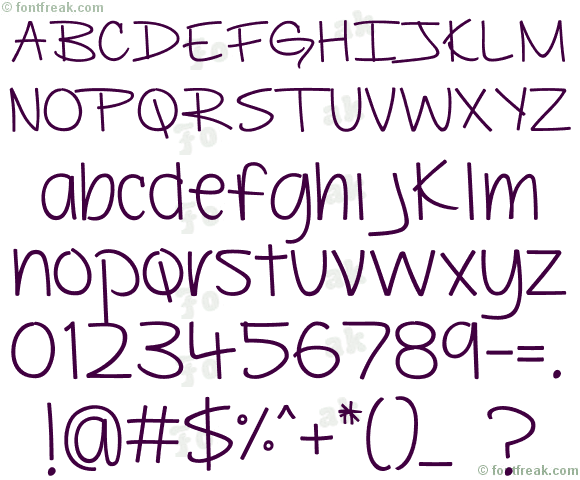
Beautiful Flaws
About Beautiful Flaws
Beautiful Flaws by Kelvin Ma is a unique handwritten font that captures the essence of imperfection, embodying a charming and personal touch. This font is characterized by its playful, irregular strokes that reflect a natural and organic style. The varying stroke weight and subtle contrast provide a sense of dynamism, while the generous spacing between characters enhances readability, making it suitable for various design projects. The design elements of Beautiful Flaws evoke a sense of authenticity, making it a delightful choice for those looking to add a human touch to their work.
This font is particularly well-suited for wedding invitations, where its elegant yet informal style creates a warm and inviting atmosphere. Additionally, it makes a striking choice for movie posters, as its unique characteristics can effectively convey the mood and theme of the film. Restaurant menus can also benefit from the font's charm, offering diners a visually appealing layout that complements the dining experience. Small business owners looking to establish a personal brand will find that Beautiful Flaws resonates well with their target audience, adding a memorable element to logos and promotional materials.
What sets Beautiful Flaws apart is its ability to embrace imperfections while still delivering a polished appearance. This font not only stands out visually but also connects with audiences on an emotional level, making it a perfect choice for those seeking authenticity in their design work. Don't miss the opportunity to explore the Beautiful Flaws font free download and elevate your creative projects.